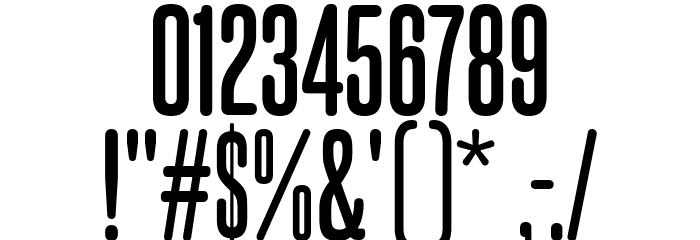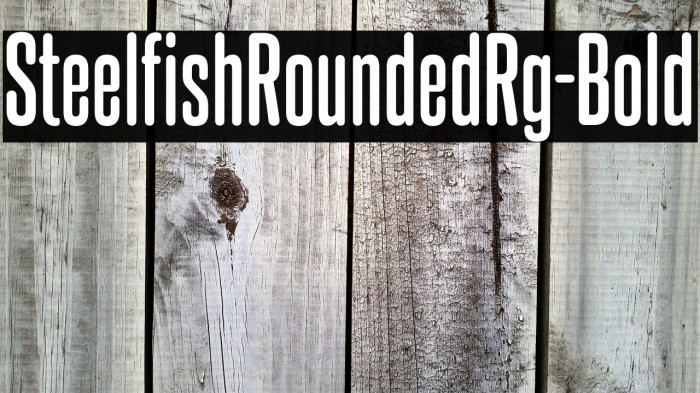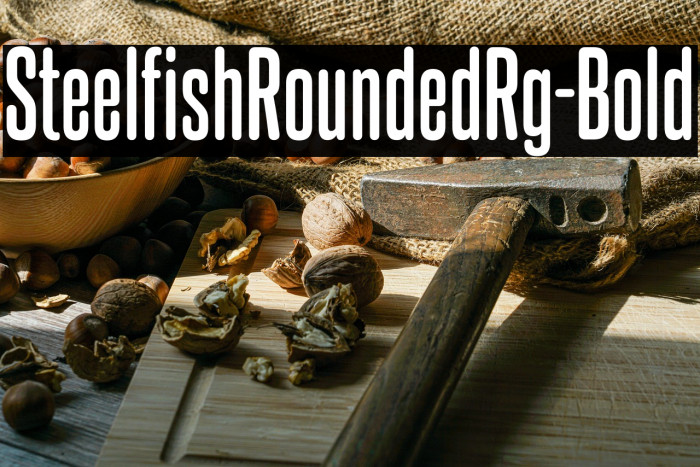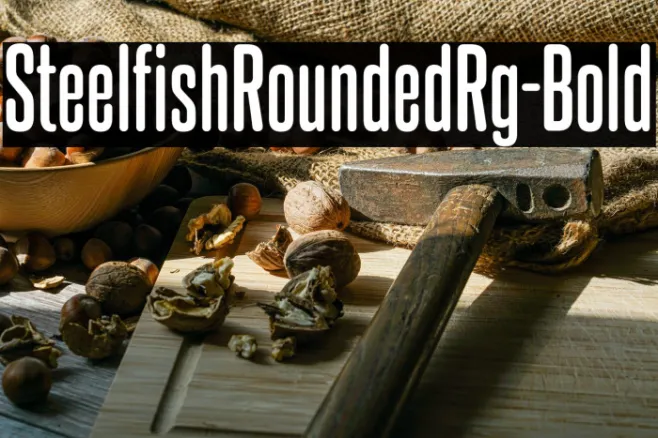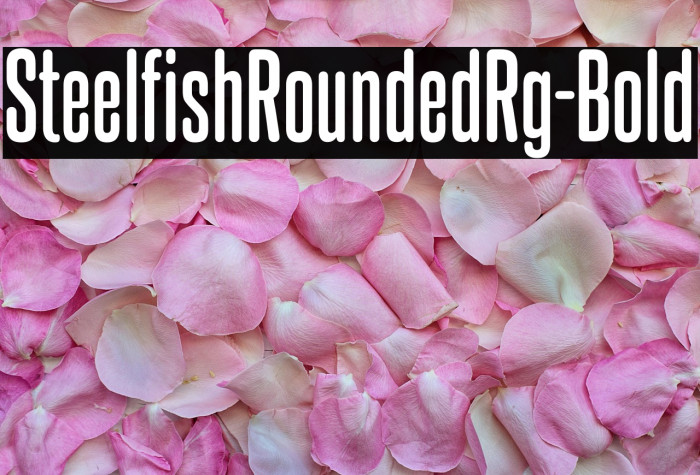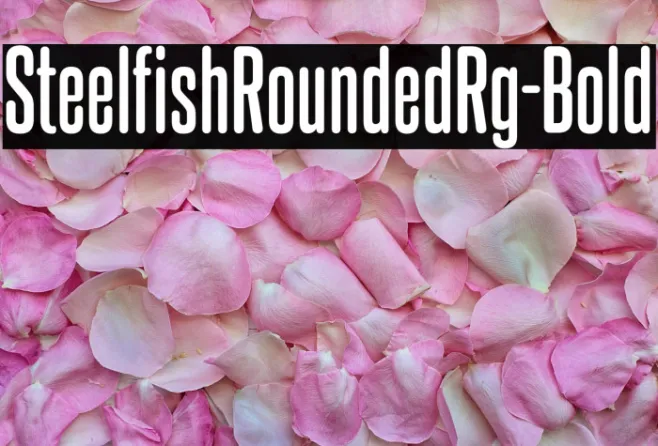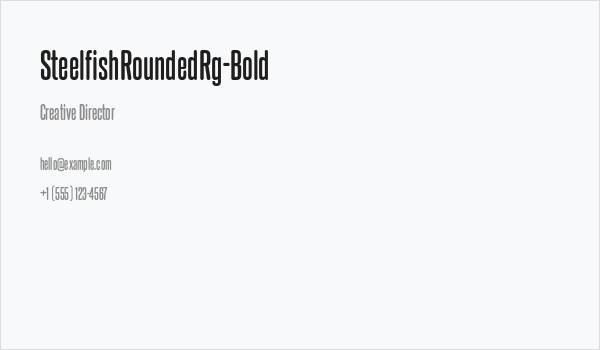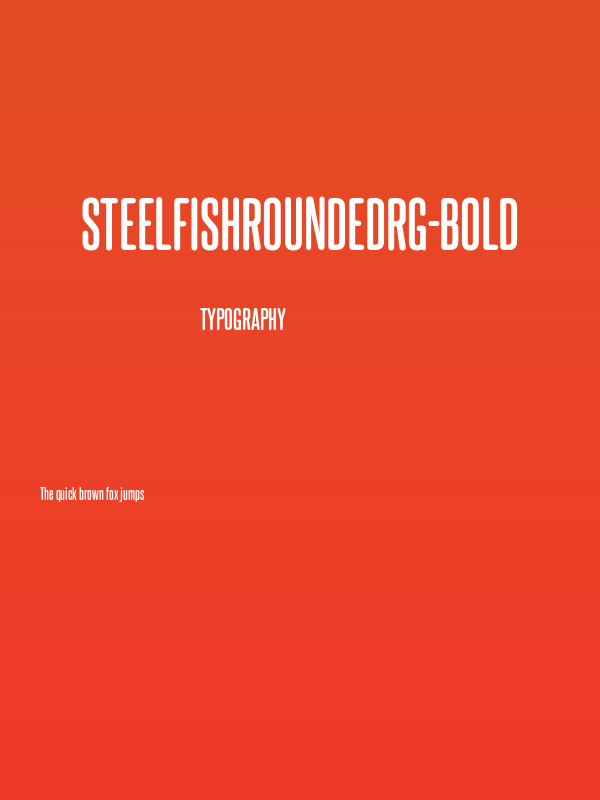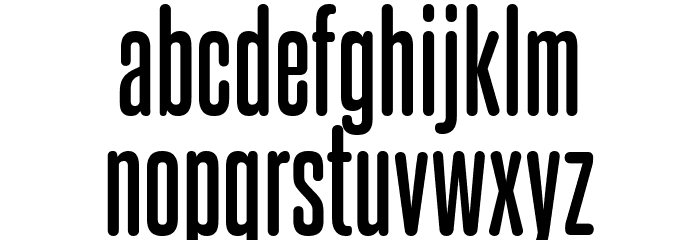
SteelfishRoundedRg-Bold Font
SteelfishRoundedRg-Bold Description
This font features a bold and rounded sans-serif style, characterized by its tall and narrow letterforms. The rounded edges give it a softer, more approachable feel, while maintaining a modern and clean aesthetic. The uppercase and lowercase letters are consistent in width, creating a uniform appearance. The numerals are similarly styled, ensuring readability and cohesion across different types of content. Special characters are included, maintaining the same rounded and bold characteristics, making this font versatile for various design needs.
| Use Case | Headlines, Logos, Signage |
| Proposed Projects | Ideal for branding, signage, headlines, and modern web design projects. |